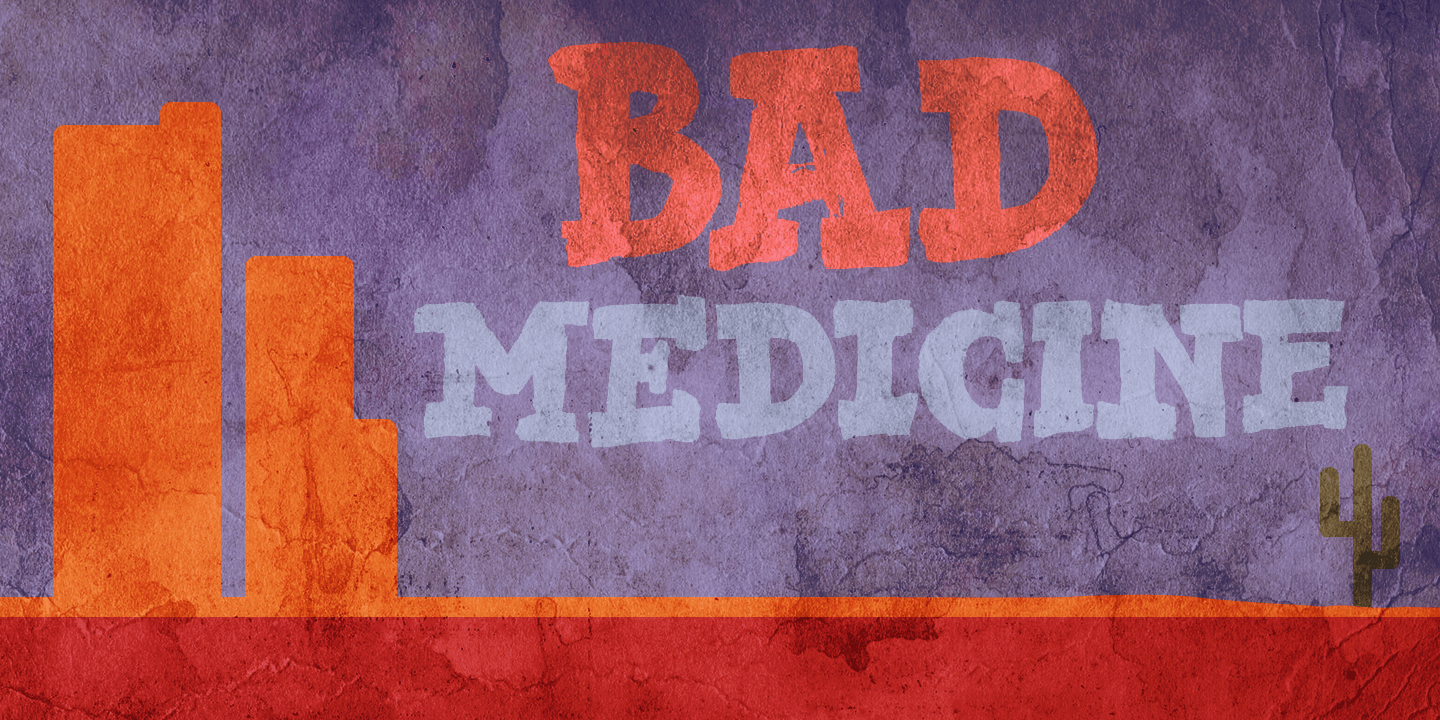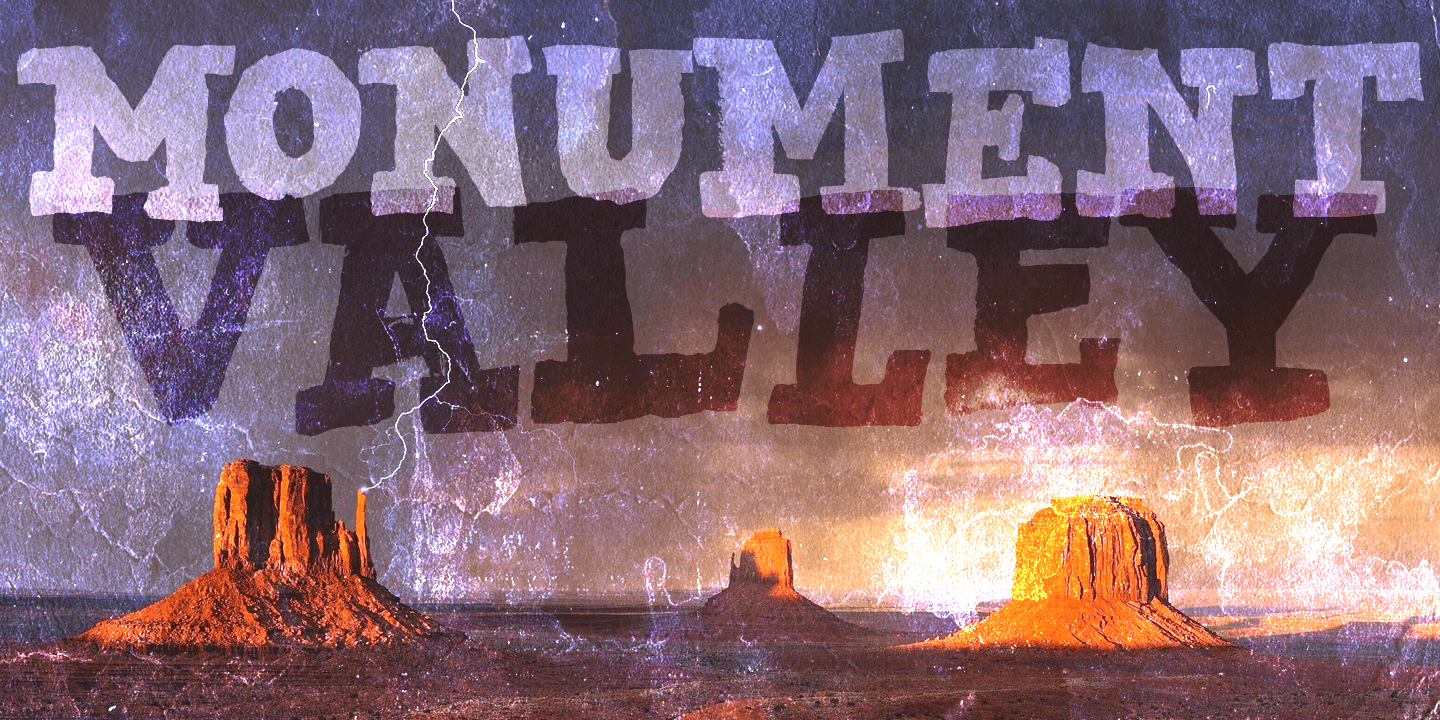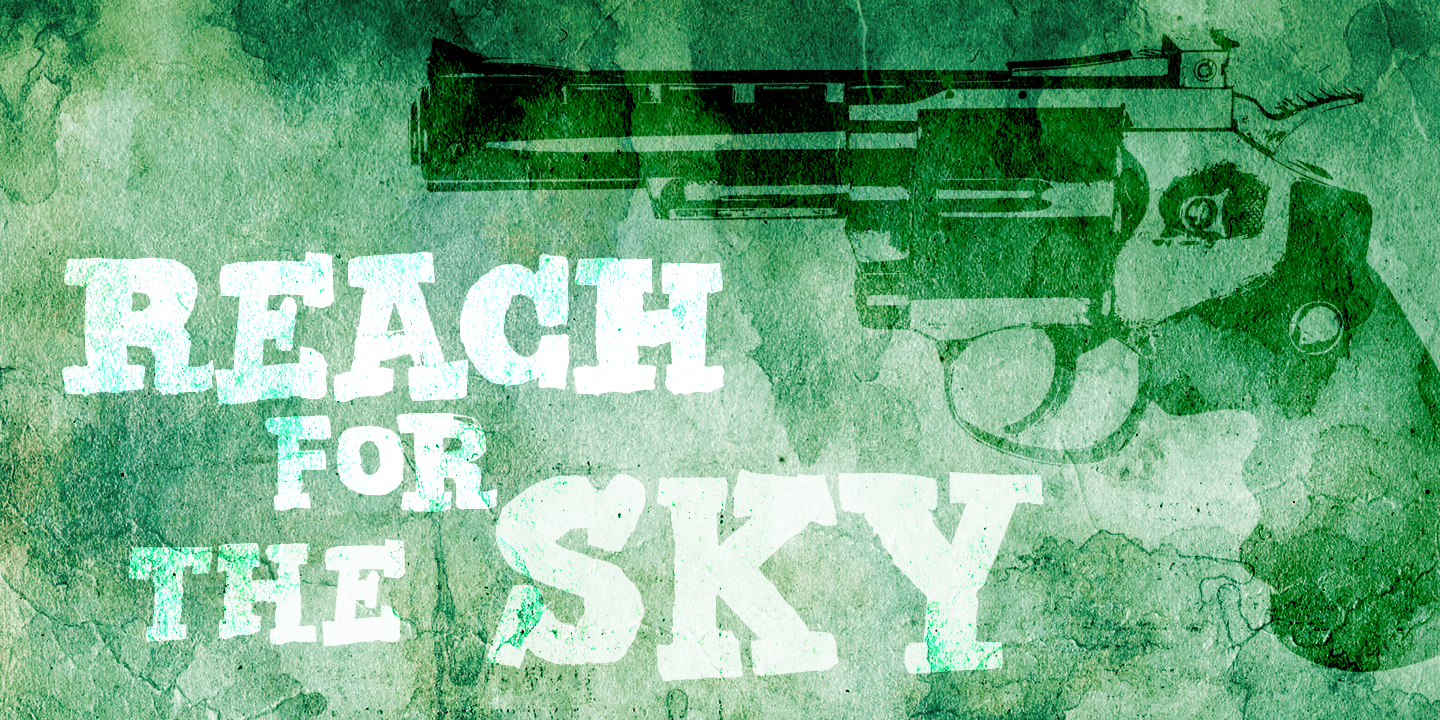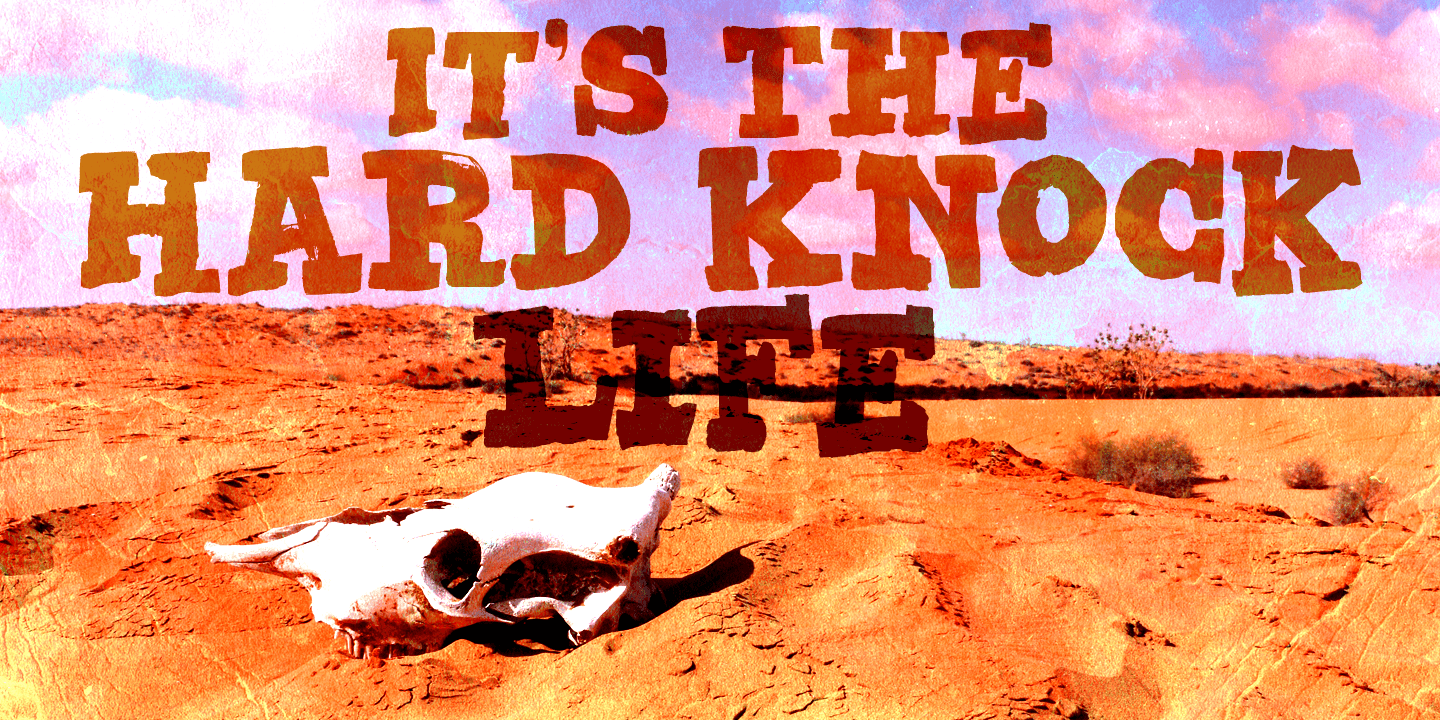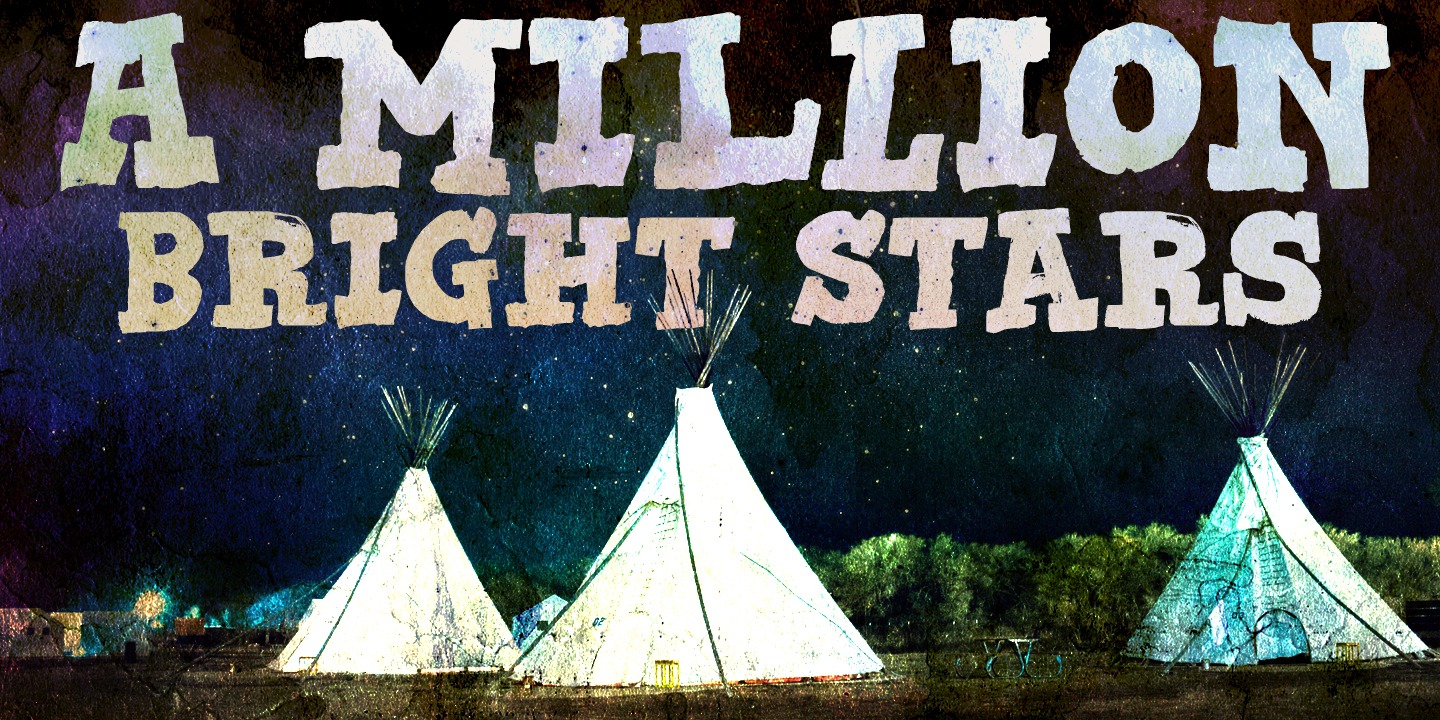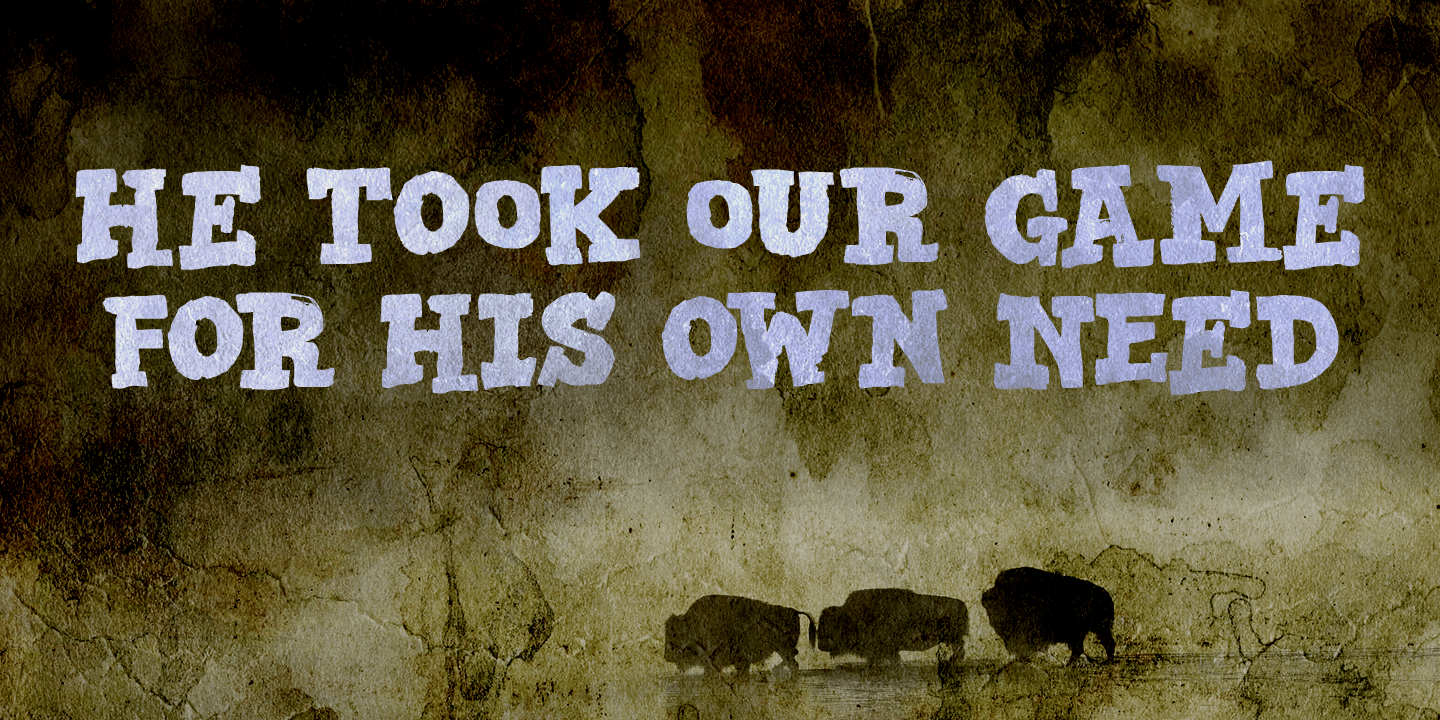
Bad Medicine
Bad Medicine is a rough Western slab serif font. It was made with a brush and China ink. Bad Medicine is quite a beefy typeface, so use it for your posters, product packaging and book covers!
Comes with a herd of diacritics as well.